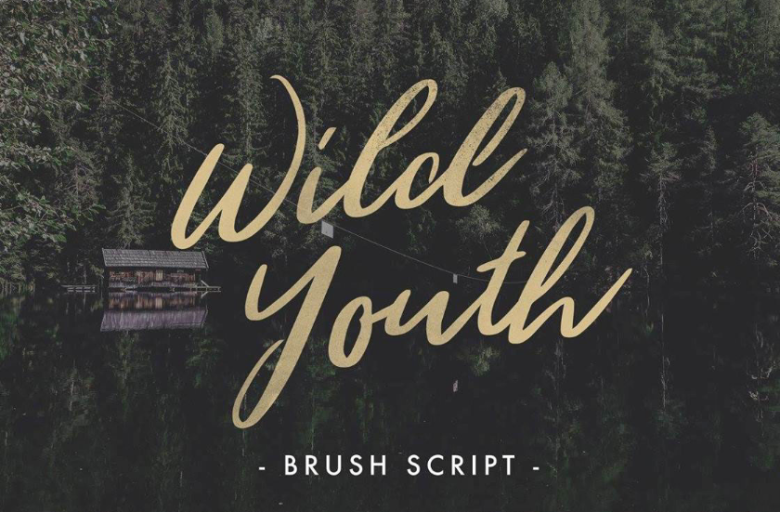
Wild Youth Font
Wild Youth is designed and shared by Jeremy Vessey. Wild Youth Font is a neat and feminine handwritten script font, created manually using brush pen. Wild Youth Font is perfect for: Logos, branding, apparel, scrap booking, wedding invitations, quotes, labels & more.